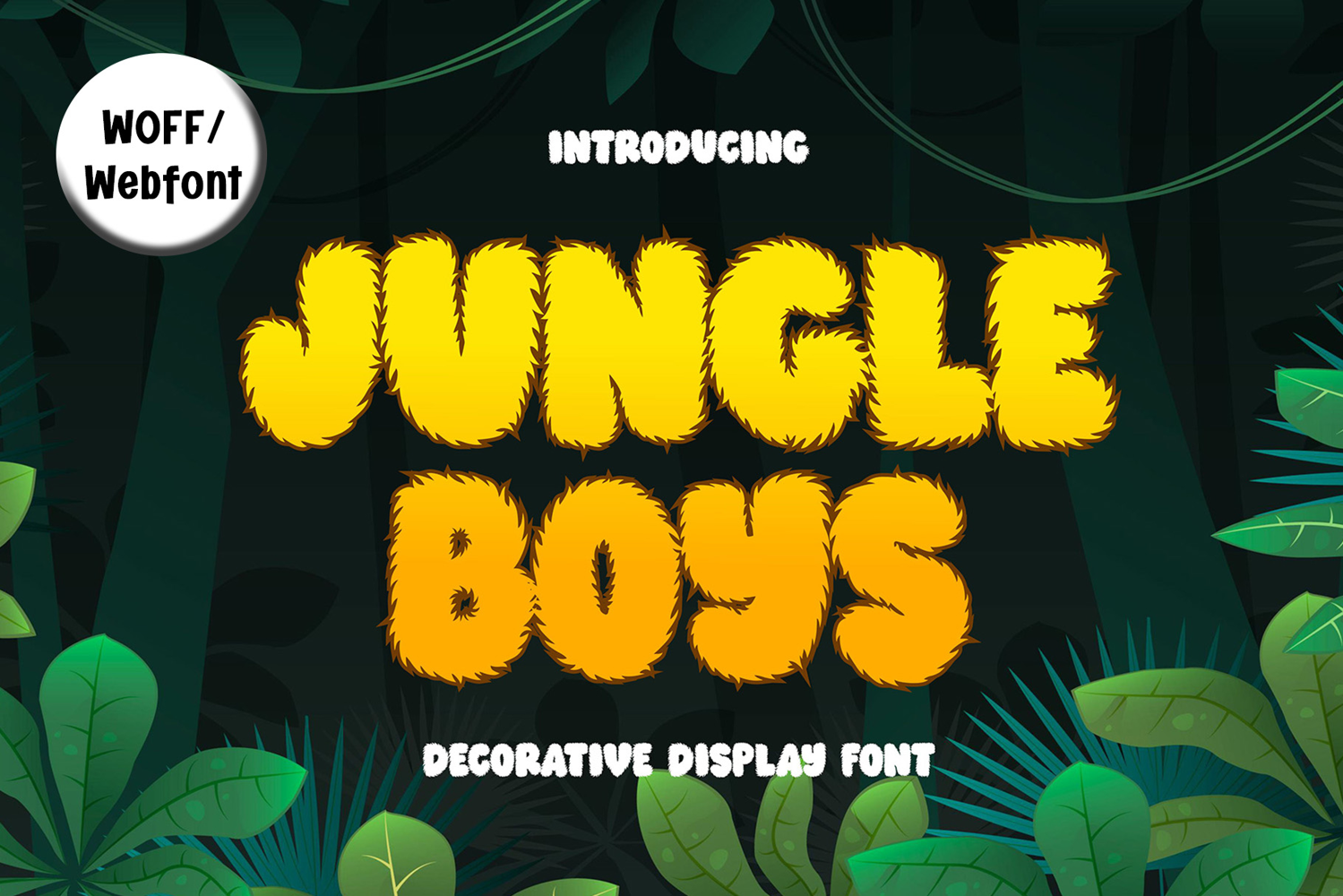
Jungle Boys | Webfont Playful Jungle-Inspired Typeface
Jungle Boys Webfont is a playful, furry-style typeface designed specifically for websites and digital platforms. With its bold, fluffy strokes and jungle-inspired details, this webfont adds a vibrant and adventurous look to any online content. It’s perfect for kid-friendly websites, jungle-themed landing pages, game titles, playful navigation menus, or digital banners that need a fun and attention-grabbing type style.